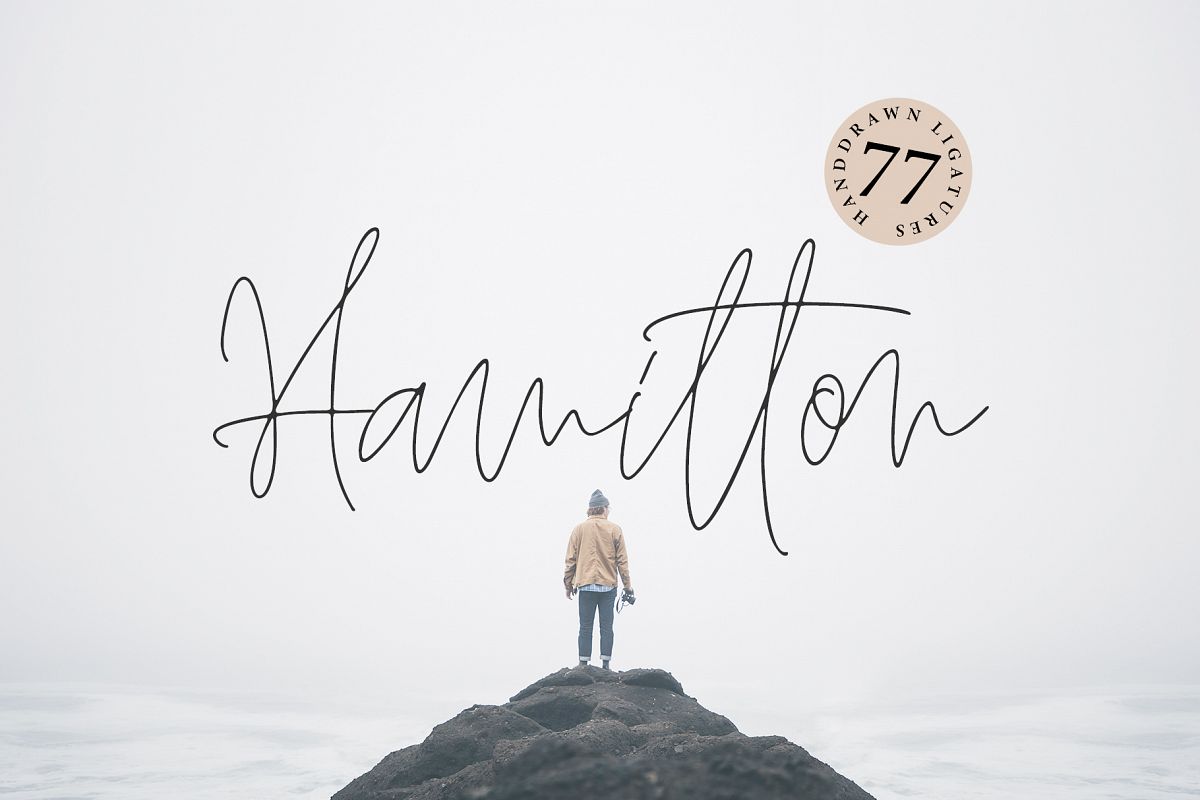
HAMILTON handwritten font signature
Hamilton-Script
Hamilton includes full set of lovely uppercase and lowercase letters, multilingual symbols, numerals and punctuation. This is so perfect for invitations, monograms etc
• Support ALL European Languages